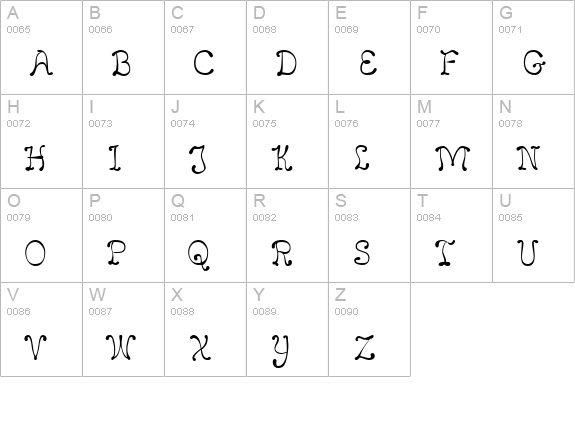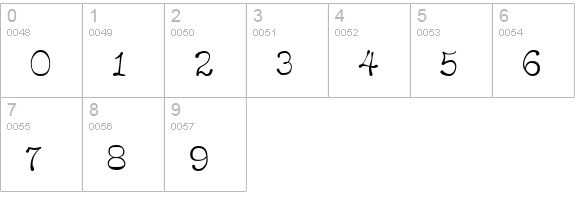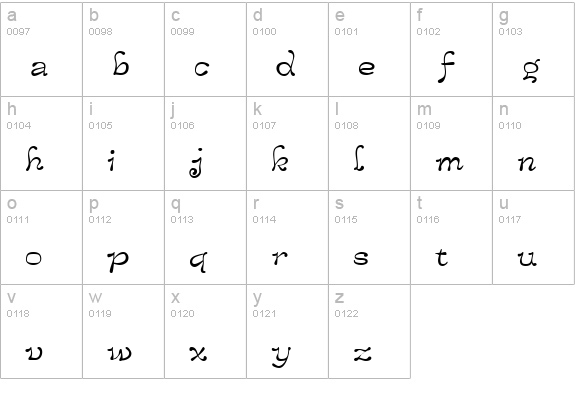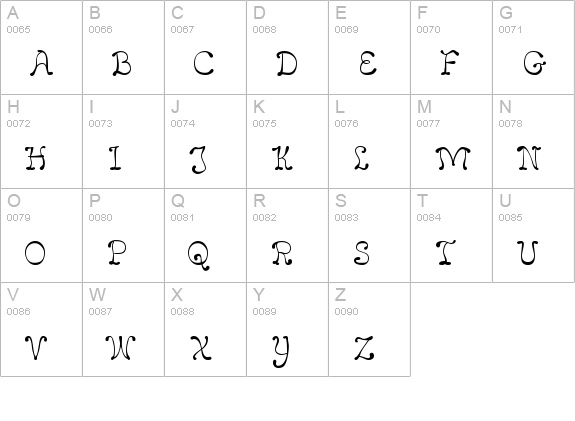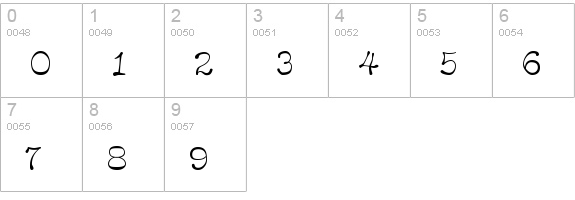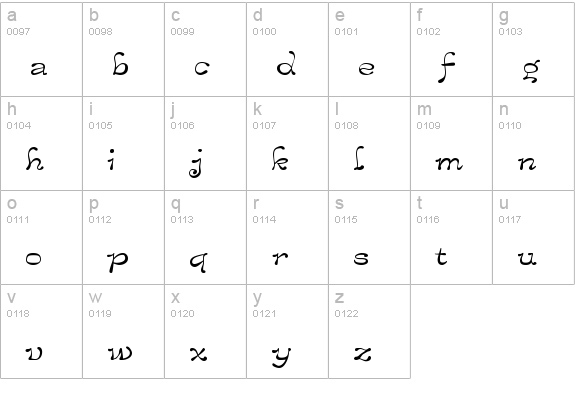
LeakorLeach Font Details
Introducing LeakorLeach font, a stunning typeface that effortlessly combines elegance and modernity. With its captivating design and unique letterforms, LeakorLeach adds a touch of sophistication to any project or creative endeavor. This versatile font is perfect for a wide range of applications, including branding, logo design, book covers, posters, and so much more. Its clean lines and well-balanced proportions make it incredibly legible, ensuring maximum readability across various mediums. LeakorLeach font is not only visually pleasing but also incredibly user-friendly. Its meticulously crafted characters flow seamlessly together, creating a harmonious and visually coherent text. The attention to detail in each glyph is evident, making this font a true work of art. One of the best features of LeakorLeach font is that it is available for free download at FontsMarket.com. This means that you can easily access and enjoy this extraordinary font without any cost. Whether you are a professional designer or a passionate enthusiast, LeakorLeach font offers you the opportunity to elevate your creative projects without breaking the bank. Embrace the beauty and versatility of LeakorLeach font and let your imagination run wild. Create stunning designs, captivate your audience, and make a lasting impression with this exceptional typeface. Download LeakorLeach font today from FontsMarket.com and unlock a world of endless possibilities.